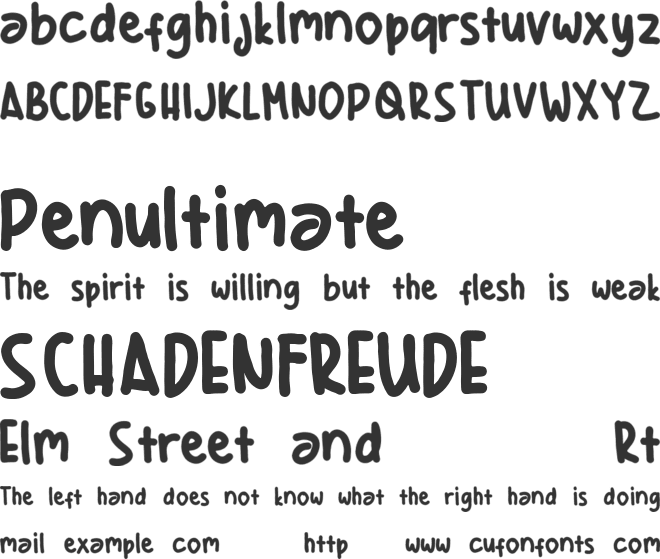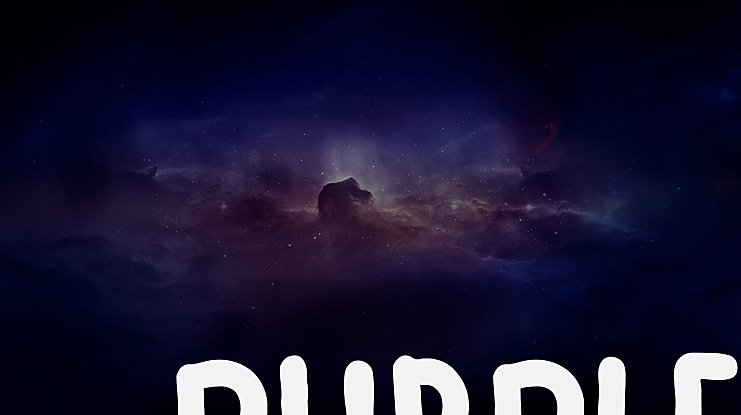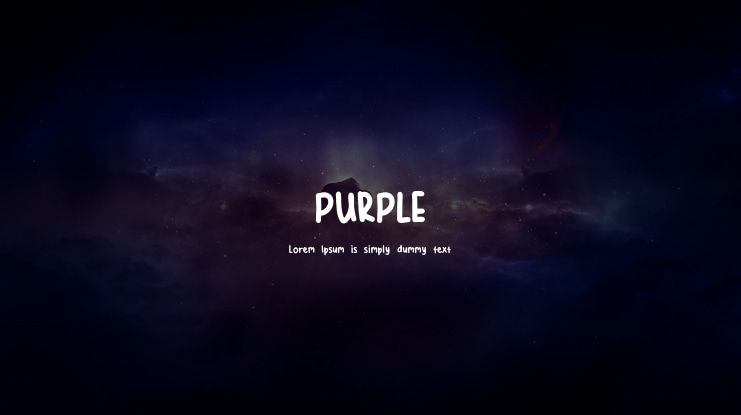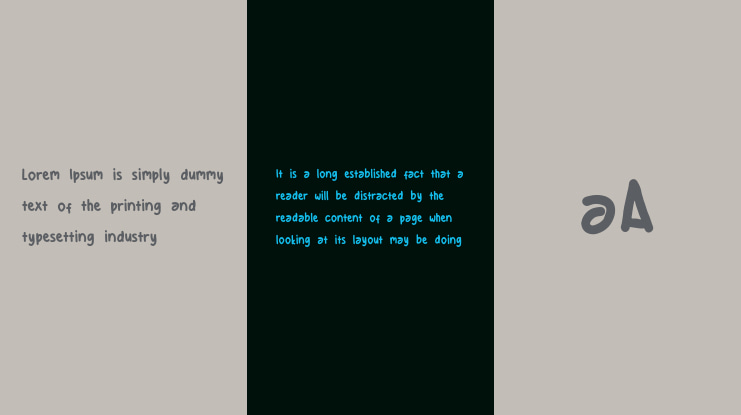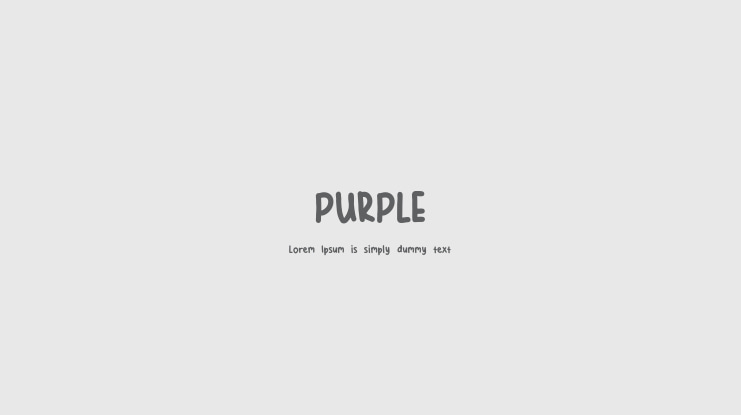
PURPLE Font
Masyafi std
Purple is a neat and casual display font. It embodies simplicity and is the perfect choice for any children activity or school project.